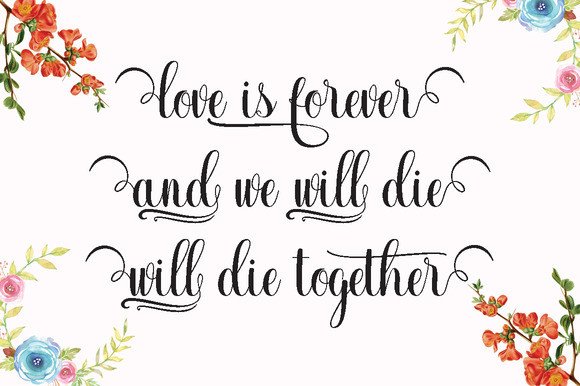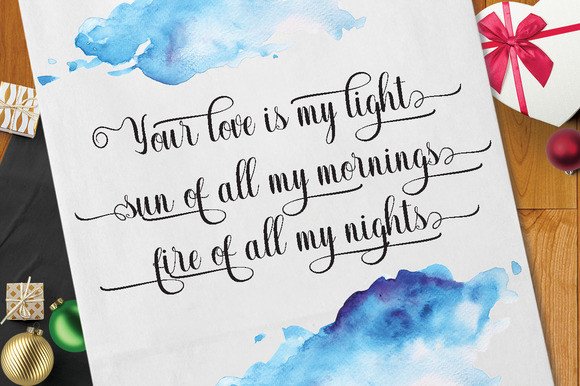
Bluebonnet Font
db-ku.com - Script & Handwritten -- Bluebonnet is a charming decorative script font, ideal for use in special event design or print applications. This font comes with gorgeous flourishes and ligatures, making it ideal for designs that need an eye-catching look.